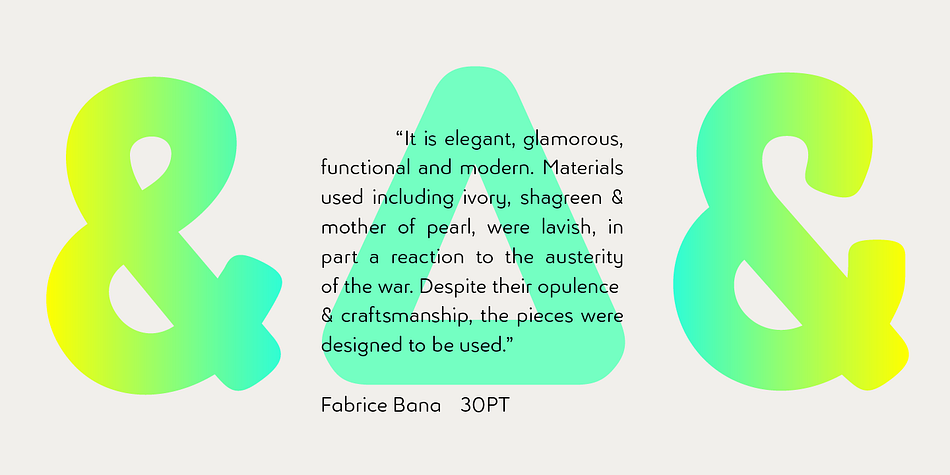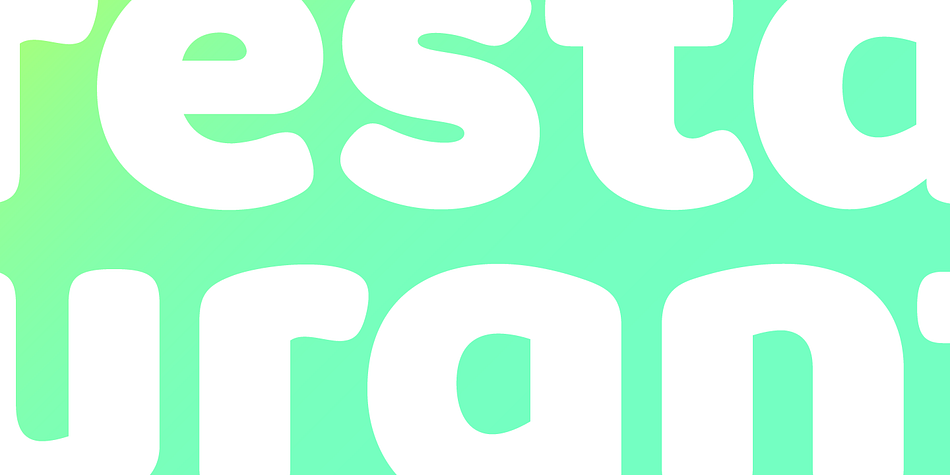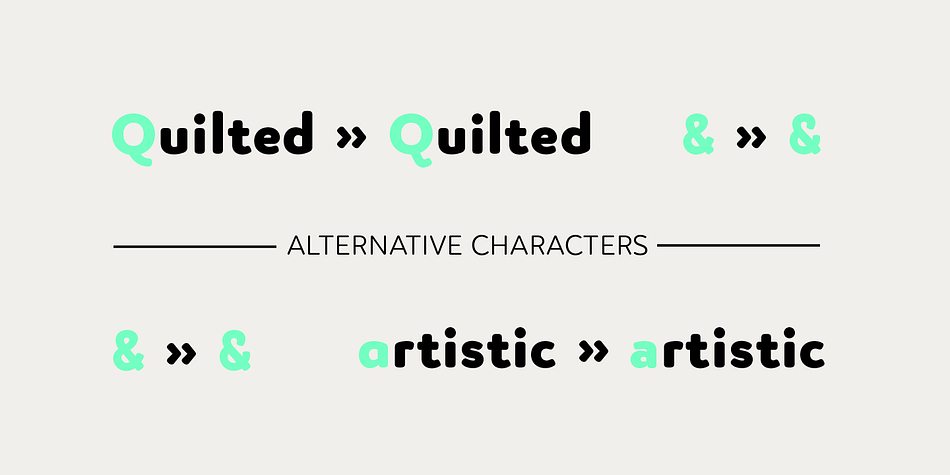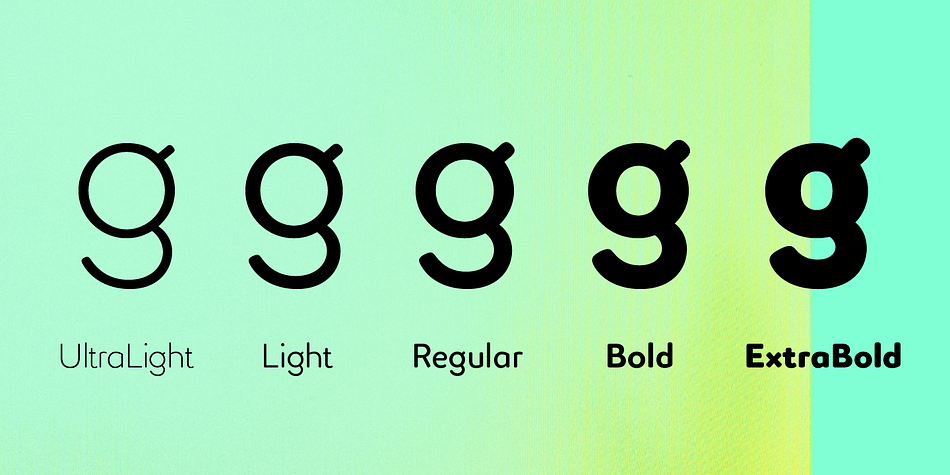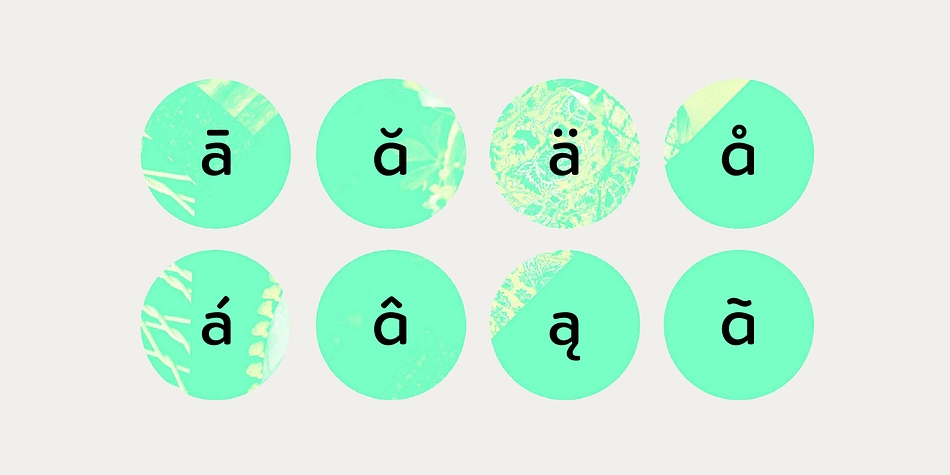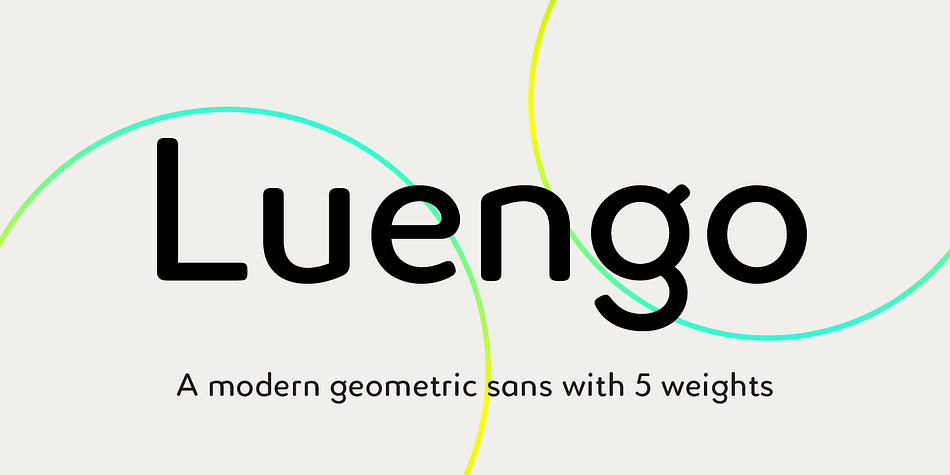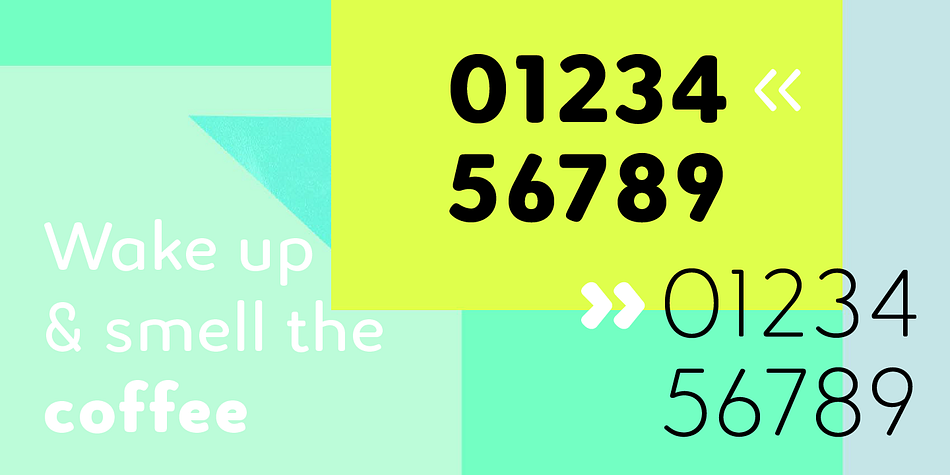
Designed by Rebecca Hurst, Luengo is a sans serif font family. This typeface has five styles and was published by Hashtag Type.
Luengo is a modern geometric sans serif font family. Rounded corners give a natural and overall home-felt feel with an accessible air and an elegant touch. Luengo is for display purpose, but it also looks great in longer copy, making this family of 5 weights perfect for a range of uses such as brand identities, packaging and editorial. Luengo offers a full European character set, ligatures and alternatives with manual kerning and spacing.
Foundry | Hashtag Type |
Designer | Rebecca Hurst |